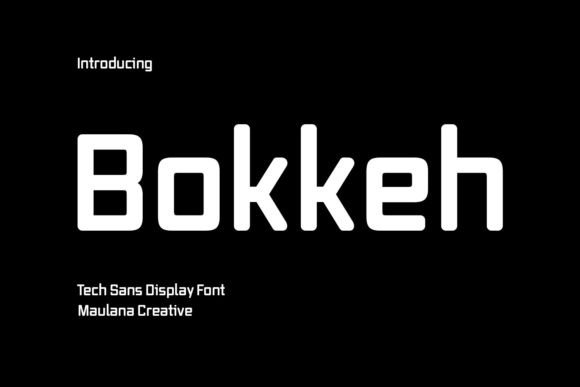
The Quest for the Perfect Font: Discovering Bokkeh
I’ll never forget the struggle I faced while working on a futuristic gaming logo project. My client wanted a font that screamed “innovation” and “boldness,” but I was stuck in a creative rut. That’s when I stumbled upon Bokkeh, a futuristic and unique display font that instantly transported me to a world of sleek lines, sharp angles, and sci-fi flair. In this article, I’ll share my journey with Bokkeh, its features, and how to make the most of this stunning font.
First Impressions: What I Love About Bokkeh
Bokkeh has quickly become one of my go-to fonts for projects that require a bold and distinctive look. Here are some features that I absolutely love:
- ✨ Unique design: Bokkeh’s fusion of sharp angles and sleek curves creates a truly out-of-this-world look.
- ✅ Versatility: This font can be used for a wide range of projects, from tech logos and gaming titles to futuristic branding and more.
- 🔥 High-impact: Bokkeh is designed to make a statement, and its bold design ensures that your text will grab attention.
While Bokkeh is an exceptional font, it’s not without its limitations. Here are a few quirks to keep in mind:
- 🤔 Legibility at small sizes: As with many display fonts, Bokkeh may not be the best choice for body text or small font sizes.
- ⚠️ Limited OpenType features: While Bokkeh does offer some OpenType features, it’s not as extensive as some other fonts on the market.
The Story Behind Bokkeh
Bokkeh was designed by a team of creatives who wanted to push the boundaries of modern typography. Inspired by the sleek lines and futuristic landscapes of sci-fi movies, they set out to create a font that would transport users to a world of innovation and boldness. The result is Bokkeh, a font that’s equal parts futuristic and functional.
| What type of projects is Bokkeh best suited for? | Bokkeh is ideal for projects that require a bold and distinctive look, such as tech logos, gaming titles, and futuristic branding. |
| Does Bokkeh support OpenType features? | Yes, Bokkeh offers some OpenType features, including stylistic alternates and glyphs. |